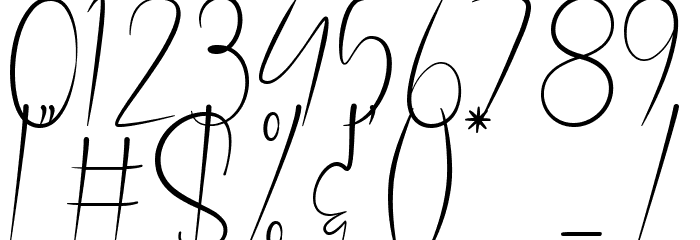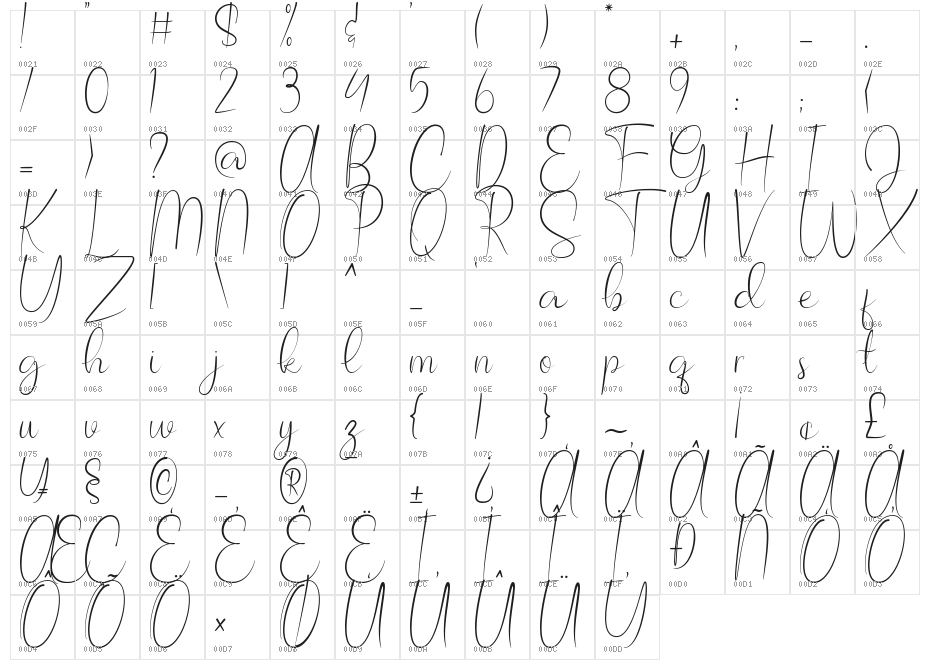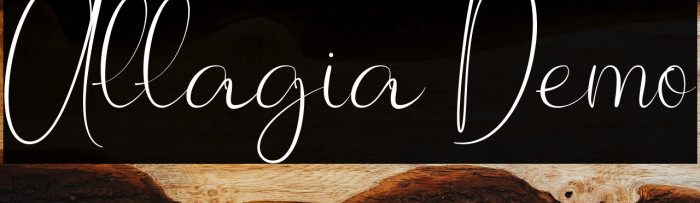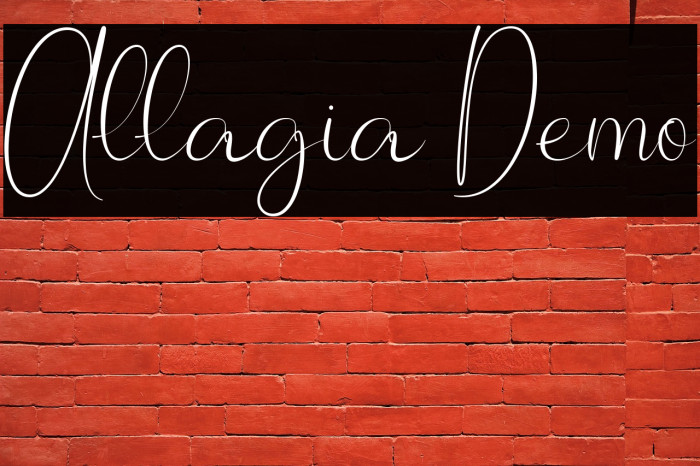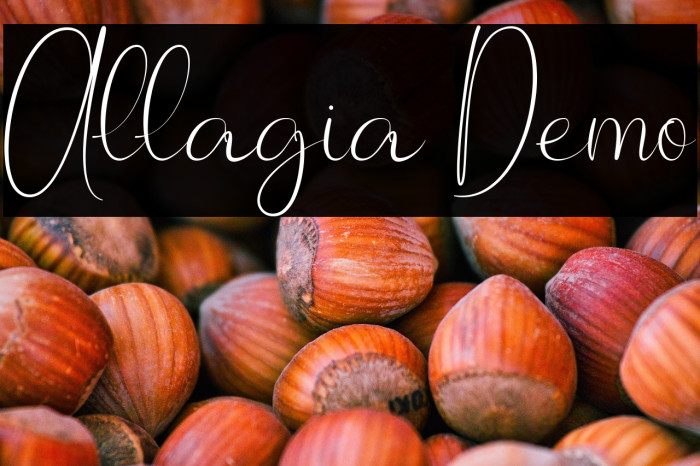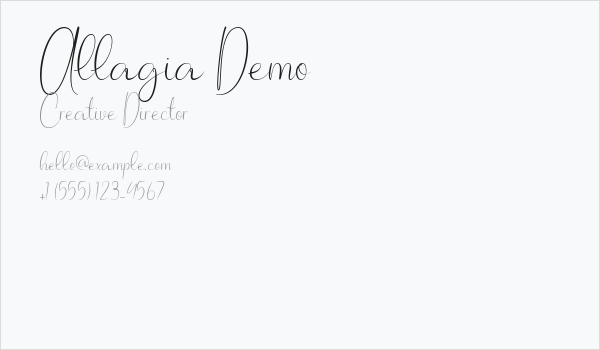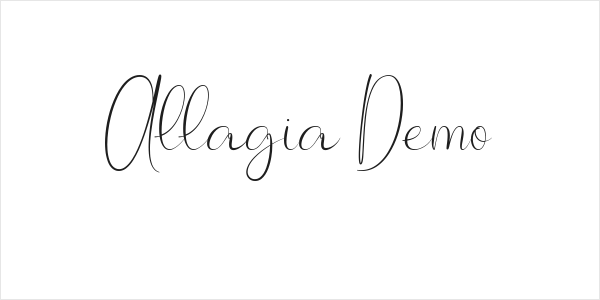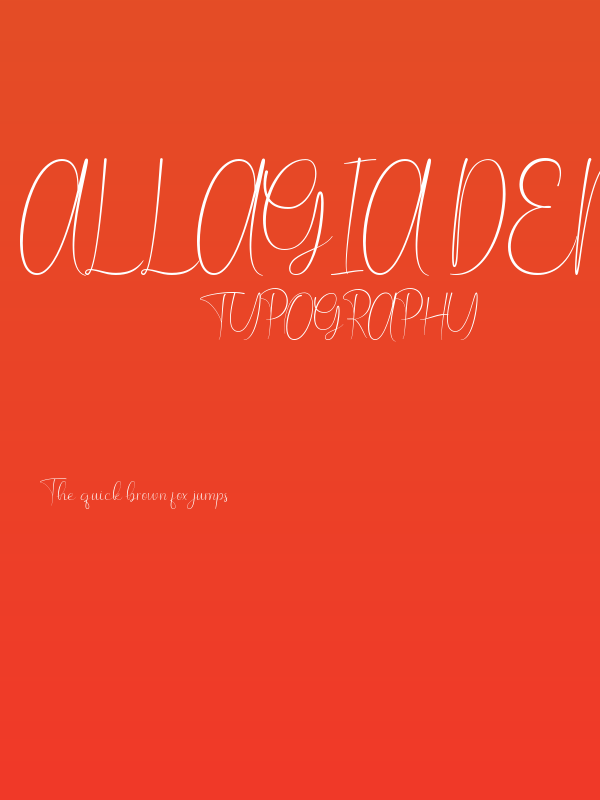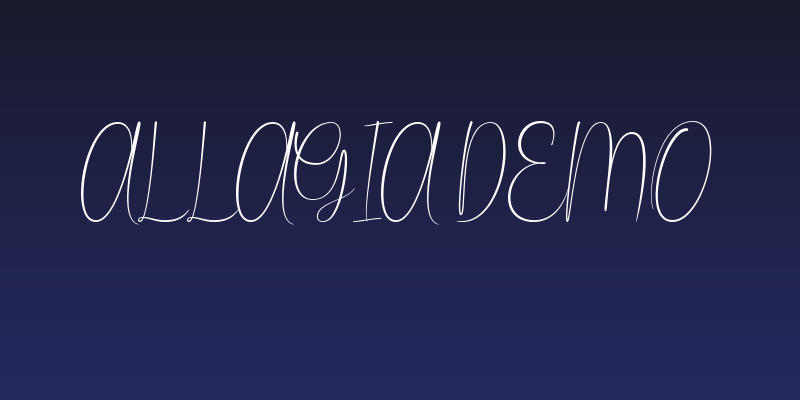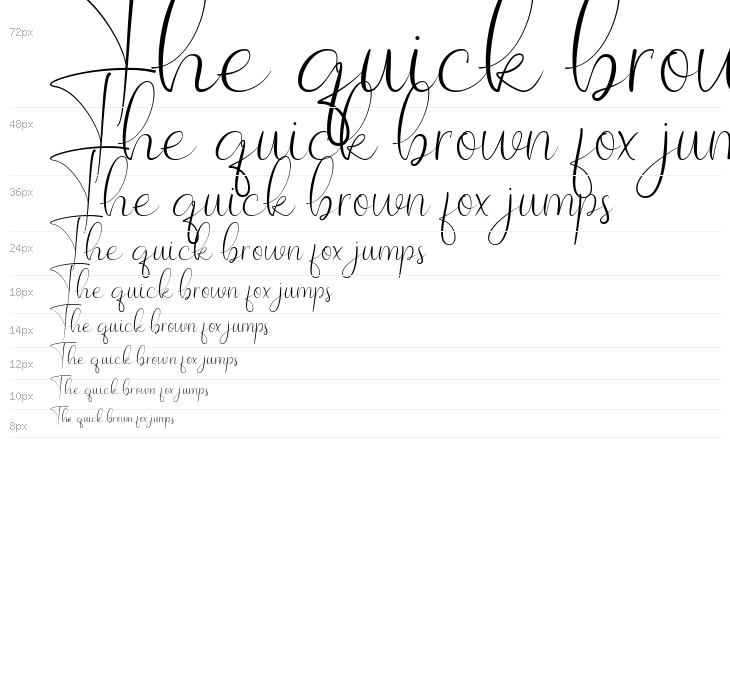
Allagia Demo Font
Allagia Demo Description
This font features an elegant, flowing script style with a modern twist. The characters are elongated and slender, with a distinct handwritten quality that exudes sophistication and grace. The uppercase letters are tall and slightly narrow, while the lowercase letters maintain a consistent fluidity, enhancing the overall aesthetic. The numerals and special characters are designed with the same attention to detail, ensuring a cohesive look across all elements. The thin strokes and delicate curves make it ideal for projects that require a touch of elegance and refinement.
| Proposed Projects | Ideal for wedding invitations, branding, elegant logos, and upscale packaging design. |